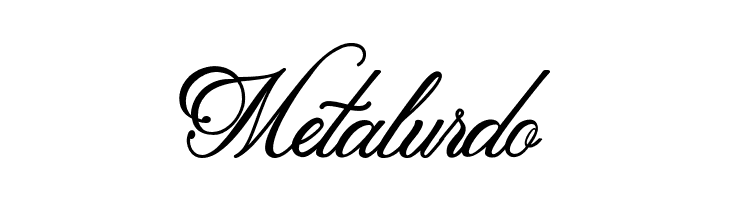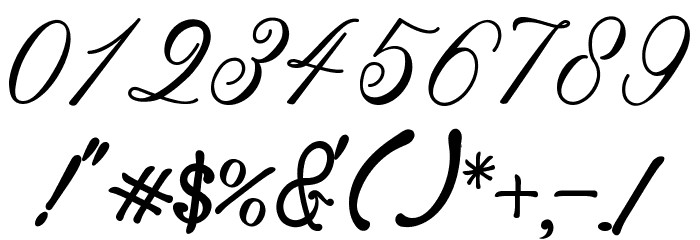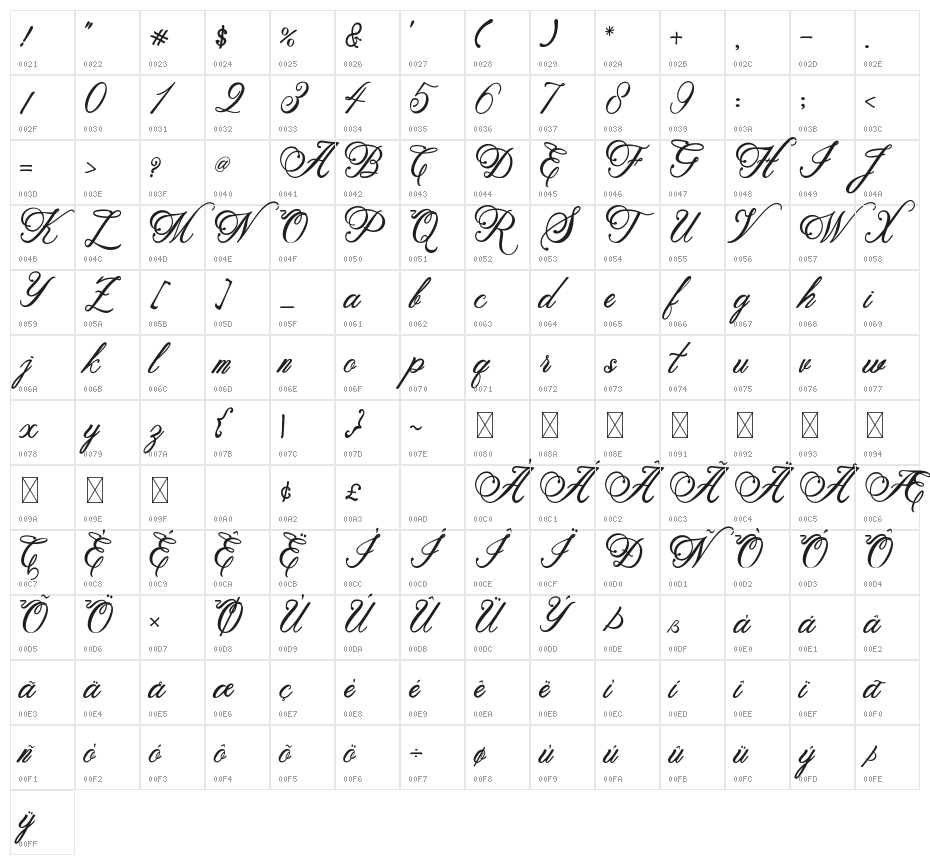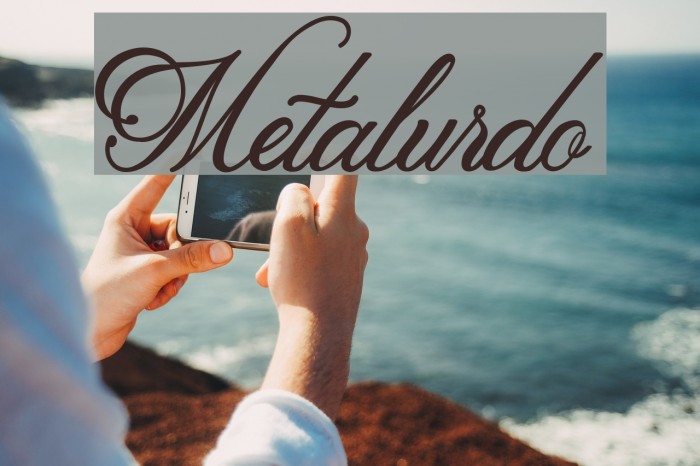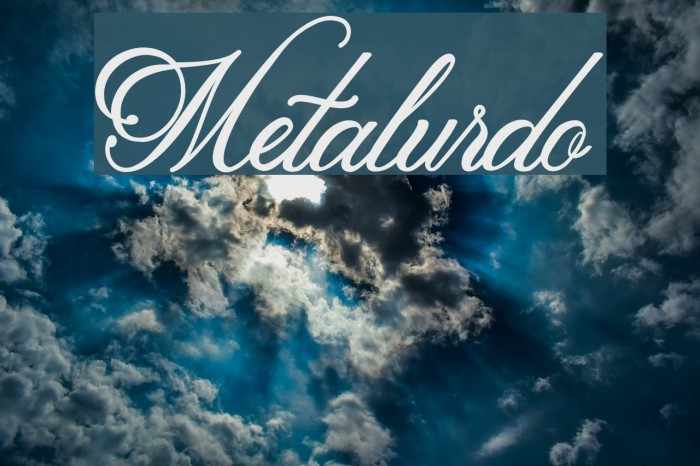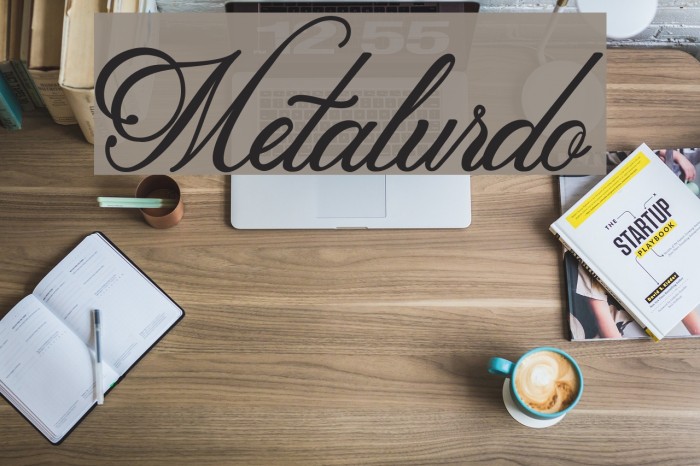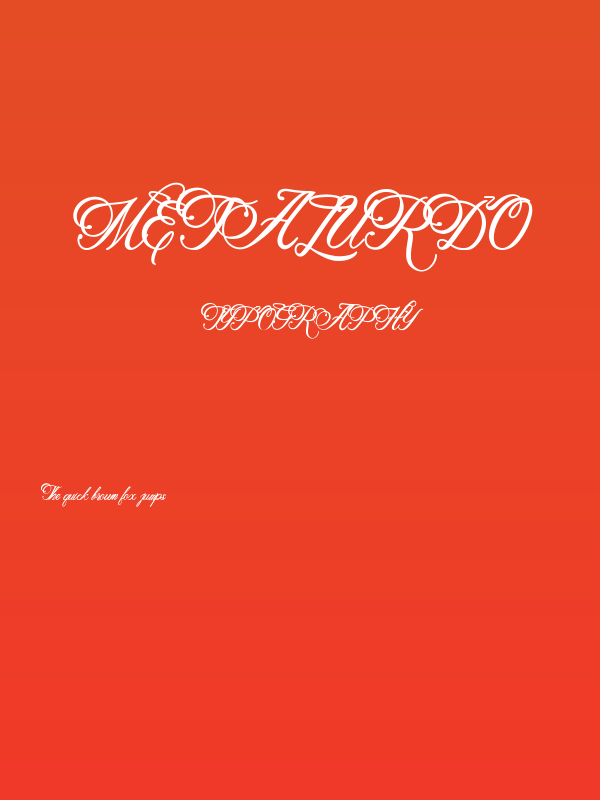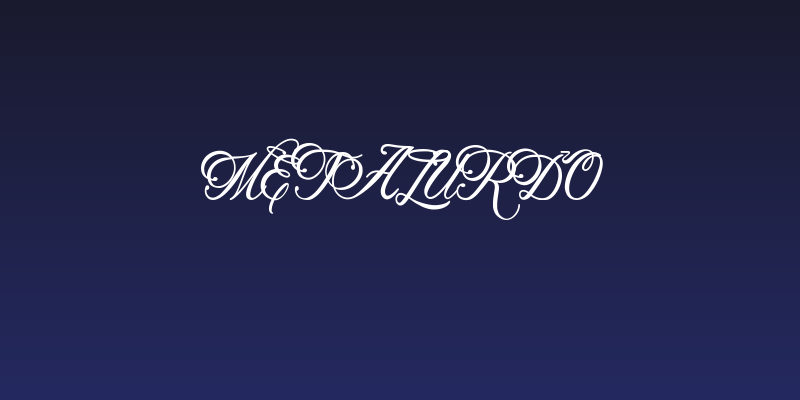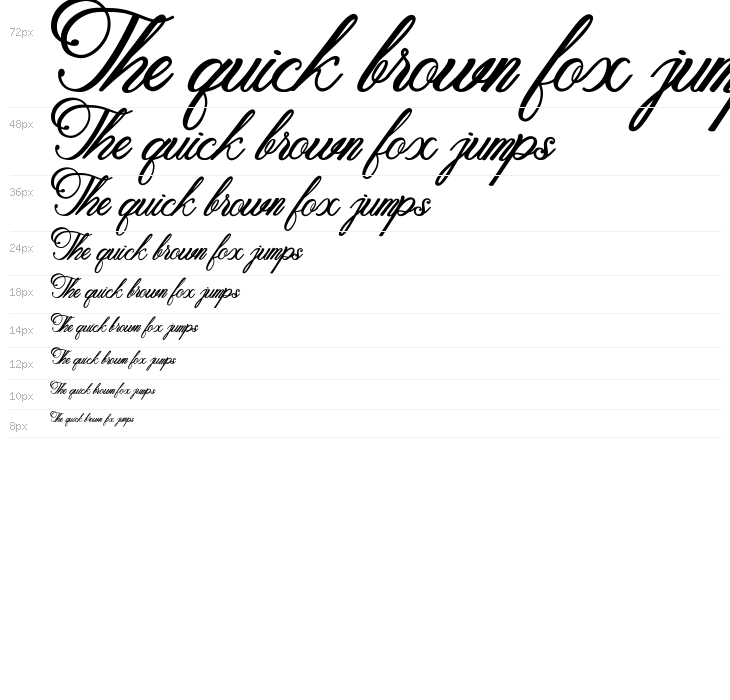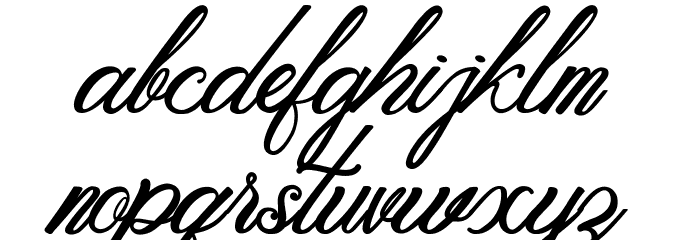
Metalurdo Font
Metalurdo Description
This font exudes elegance and sophistication with its intricate, flowing script style. The letters are interconnected, creating a seamless and fluid appearance. The uppercase characters are ornate, featuring elaborate swirls and loops that add a touch of grandeur. The lowercase letters maintain a consistent style, with smooth curves and a graceful demeanor. The numerals are designed to match the overall aesthetic, with a slight slant and decorative elements. Special characters are equally stylized, ensuring a cohesive look across all text. This font is ideal for projects that require a touch of luxury and refinement.